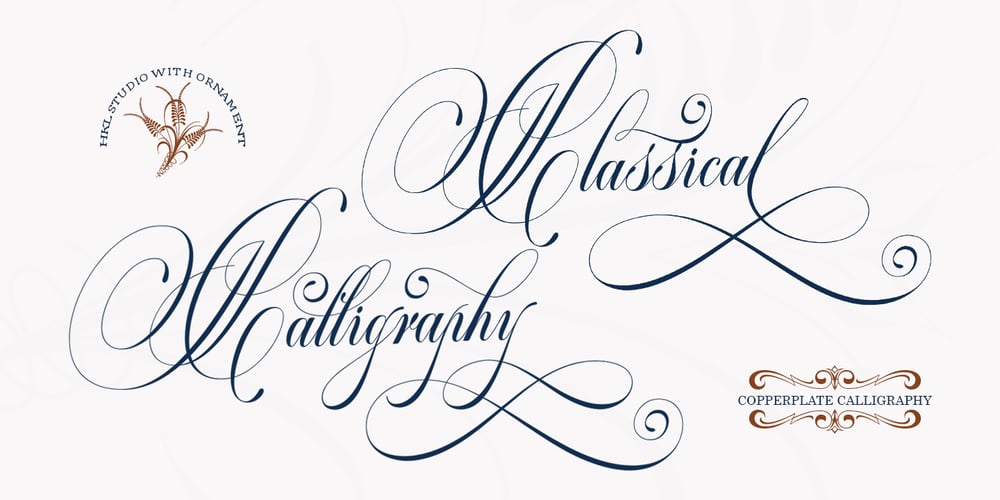
Classical Calligraphy
Classical Calligraphy font
Classical Calligraphy Font Family was designed by T Haikal Budillah and published by HKL Studio. Classical Calligraphy contains 2 styles and family package options. Classical Calligraphy Script With OrnamentIs a calligraphy Vintage script font that comes with beautiful alternate characters. copper plate mix calligraphy with handlettering style. to show its performance. Classical Calligraphy is attractive as a typeface that is smooth, clean, feminine, sensual, glamorous, simple and very easy to read.Classical Calligraphy Script comes with a Clean and Aged version, beautifully binding upper and lower case, binding and loved by many finishes. It has Multilingual support (Western European characters) and works with the following languages: English, Danish, Dutch, Estonian, Finnish, French, German, Hungarian, Icelandic, Norwegian, Polish, Portuguese, Spanish, Swedish.In my example I show how this script can be used. It’s perfect for logos, wedding invitations, alcohol labels, romantic cards, and more.Products include:Classical Calligraphy Script, Classical Calligraphy Extras Ornament Alternate Upper & Lower Case Style Binding, as well as a touch of ornament make this font look elegant. Recommended for use in Adobe Illustrator or Photoshop. Special features don’t work in Microsoft Word.How to access all alternative characters using Adobe Illustrator: https://www.youtube.com/watch?v=XzwjMkbB-wQHow to use font style set in Microsoft Word 2010 or later version: https://www.youtube.com/watch?v=NVJlZQ3EZU0There are additional ways to access the alternative/swash, using the Character Map (Windows), Nexus Font (Windows) Font Book (Mac) or a software program such as PopChar (for Windows and Mac).How to access all alternative characters, using Windows Character Map with Photoshop: https://www.youtube.com/watch?v=Go9vacoYmBwIf you need any help or suggestions please contact me via email: creativescaleup@gmail.com